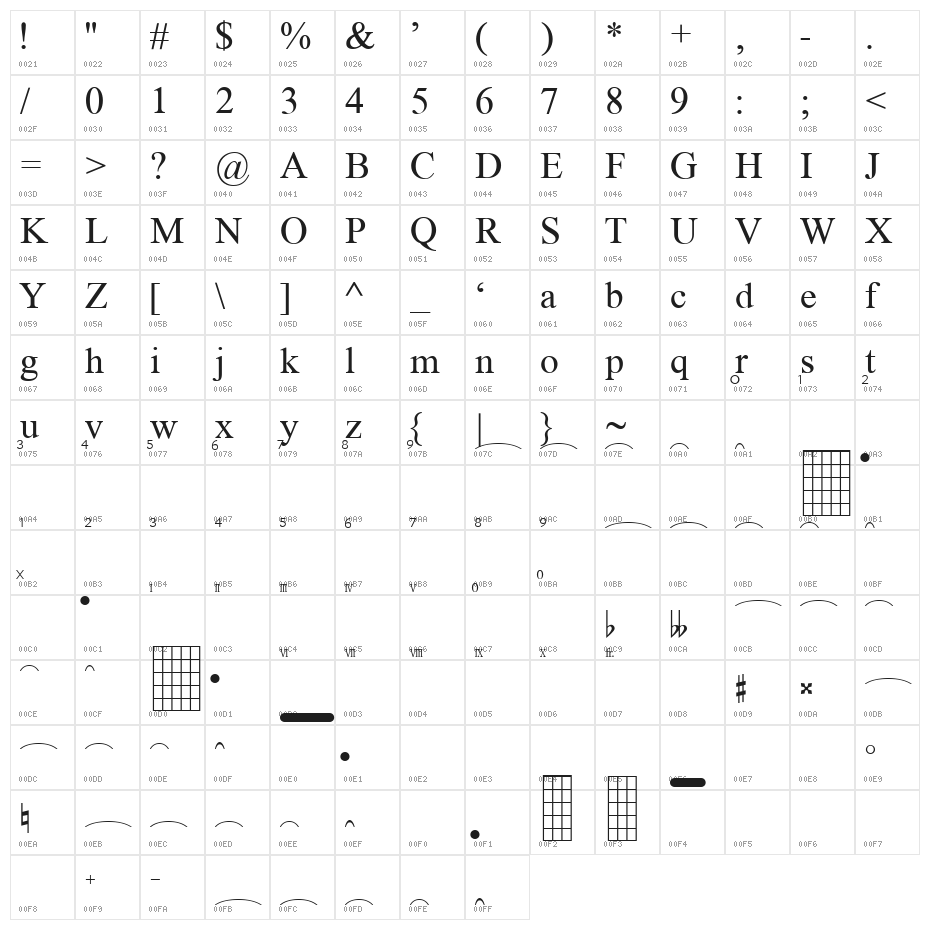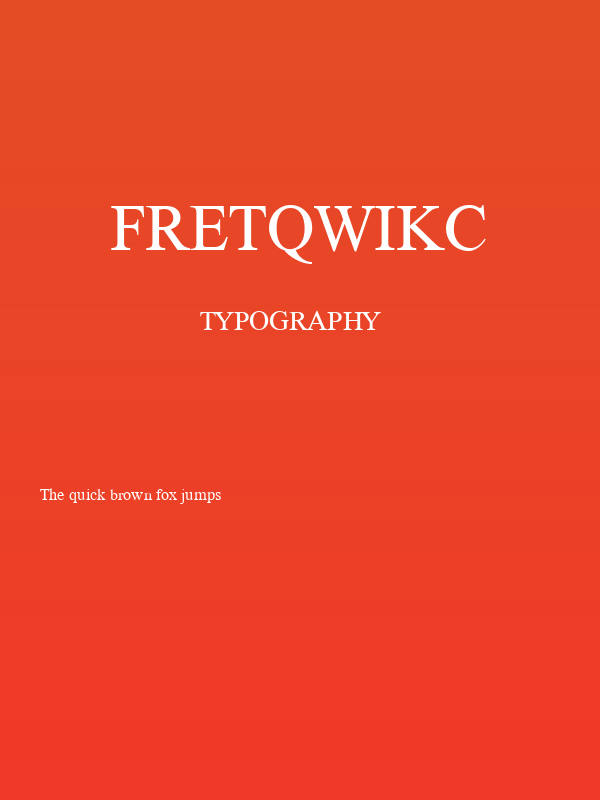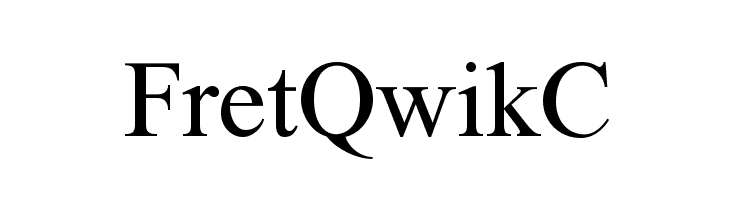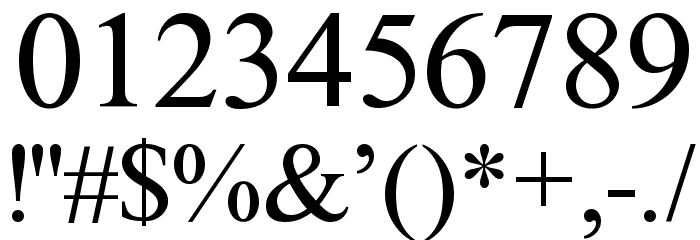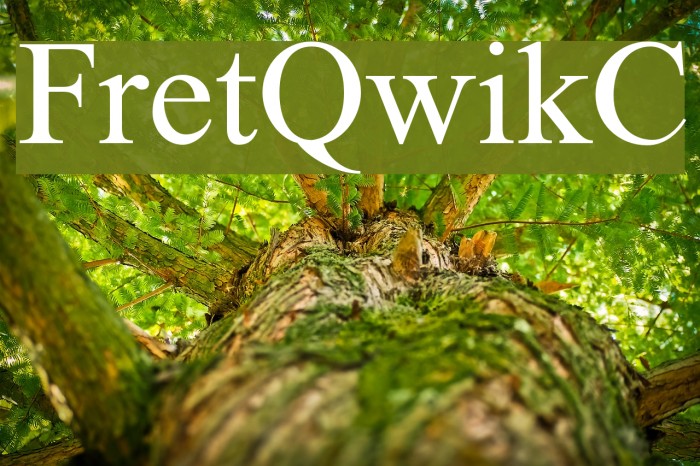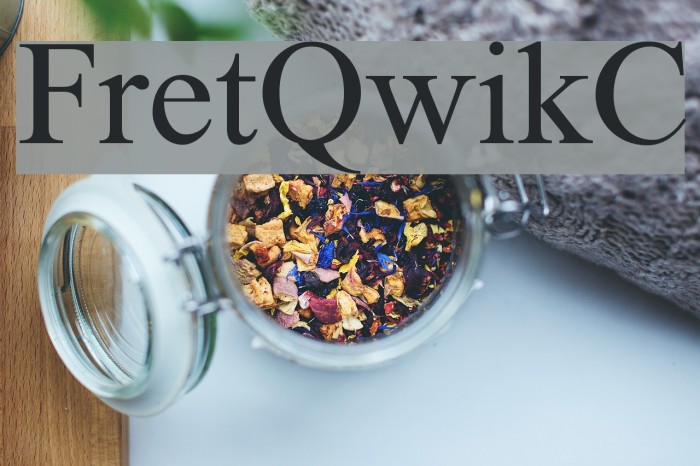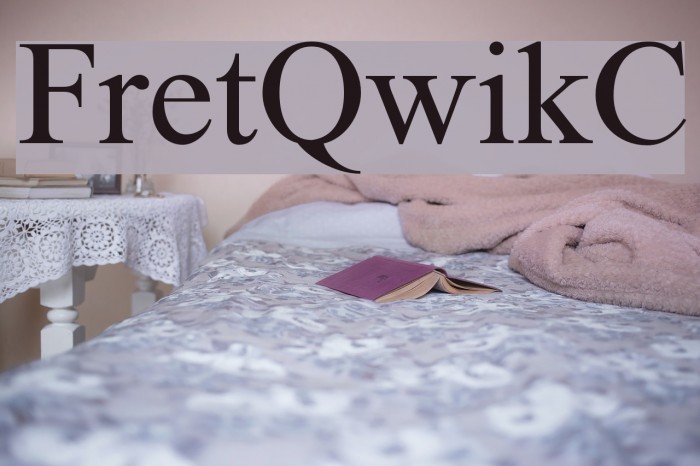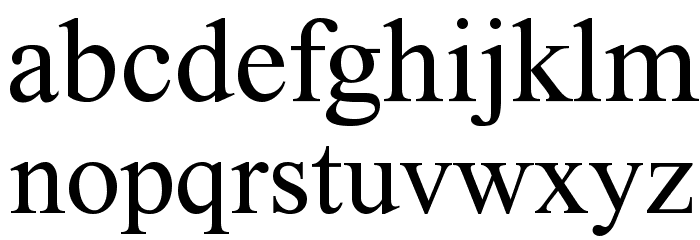
FretQwikC Font
FretQwikC Description
This font exhibits a classic serif style with elegant and refined strokes. The uppercase letters are bold and commanding, while the lowercase letters maintain a balanced and harmonious appearance. The numerals are clear and distinct, making them easily readable. Special characters are well-integrated, maintaining the overall aesthetic. The font's design is suitable for conveying a sense of tradition and reliability, making it ideal for formal documents, editorial design, and branding that requires a touch of sophistication.
| Proposed Projects | Ideal for editorial design, formal documents, branding, and any project requiring a sophisticated and traditional look. |